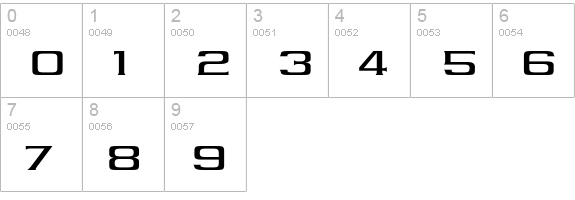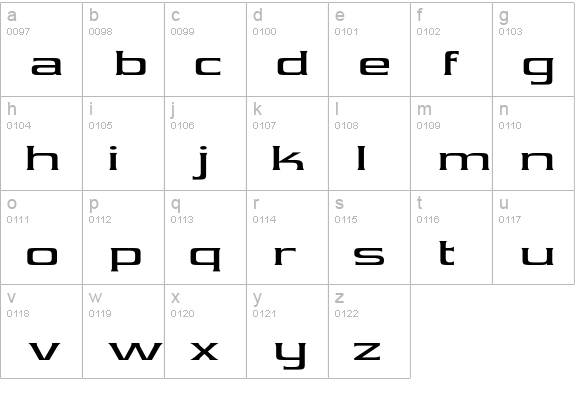
Vibrocentre Font Details
Vibrocentre font is a stunning display font that exudes a sense of modernity and sophistication. With its sleek and refined letterforms, this font is perfect for adding a touch of elegance to any design project. One of the standout features of Vibrocentre font is its versatility. Whether you're designing a logo, a headline, or a poster, this font will effortlessly elevate your work to new heights. Its clean lines and balanced proportions make it easy to read, ensuring that your message gets across loud and clear. But what sets Vibrocentre font apart from the rest is its availability for free. Yes, you read that right! This amazing font can be freely downloaded at FontsMarket.com, allowing you to enhance your designs without breaking the bank. It's a true game-changer for designers and creatives who are looking to make a statement without compromising on quality. Furthermore, Vibrocentre font offers a wide range of weights and styles, making it suitable for various design purposes. Whether you're going for a bold and impactful look or a more subtle and refined aesthetic, this font has got you covered. With its seamless integration into any design software, Vibrocentre font is incredibly easy to use and customize. Its OpenType features allow for further experimentation and creativity, giving you the freedom to truly make this font your own. So why wait? Take advantage of the opportunity to download Vibrocentre font for free at FontsMarket.com. Elevate your designs, captivate your audience, and make a lasting impression with this exceptional font.